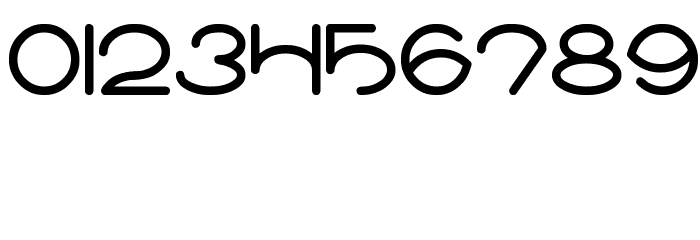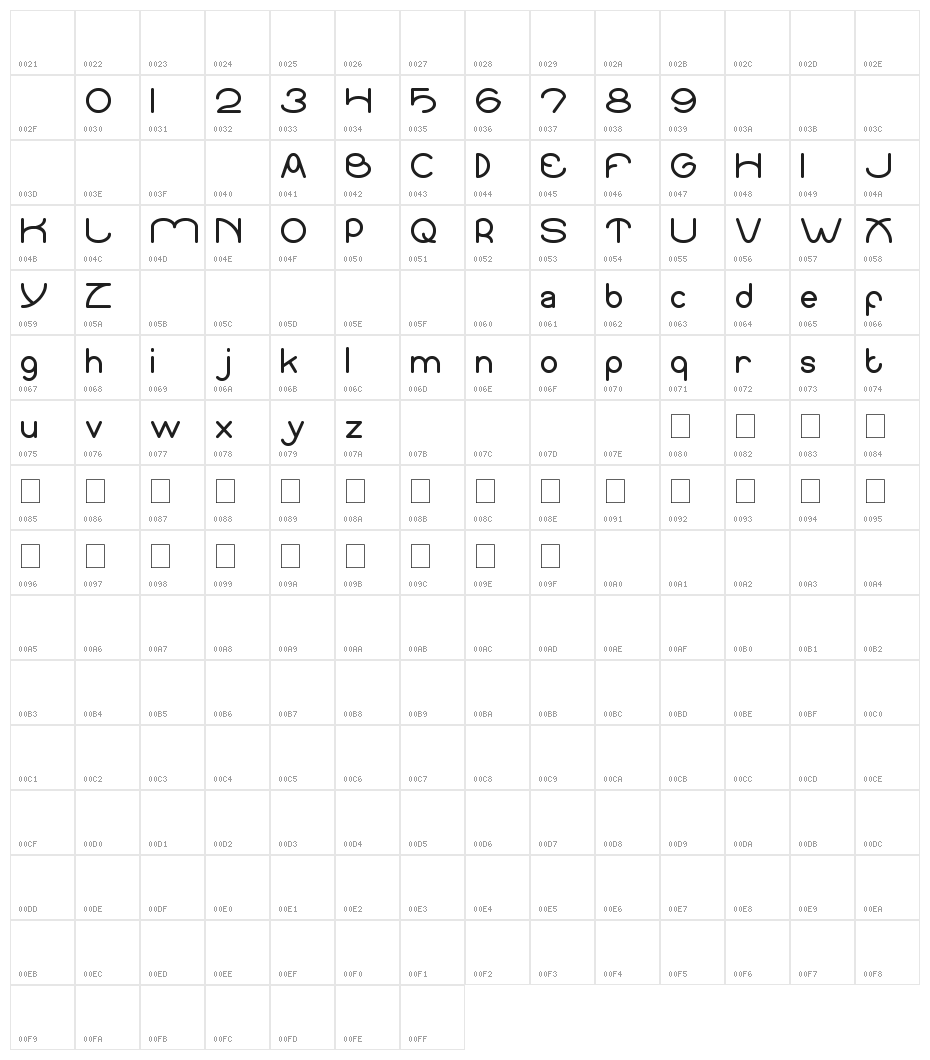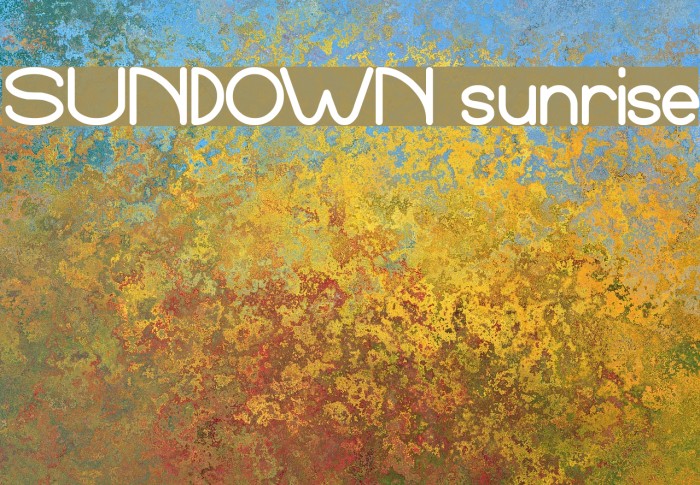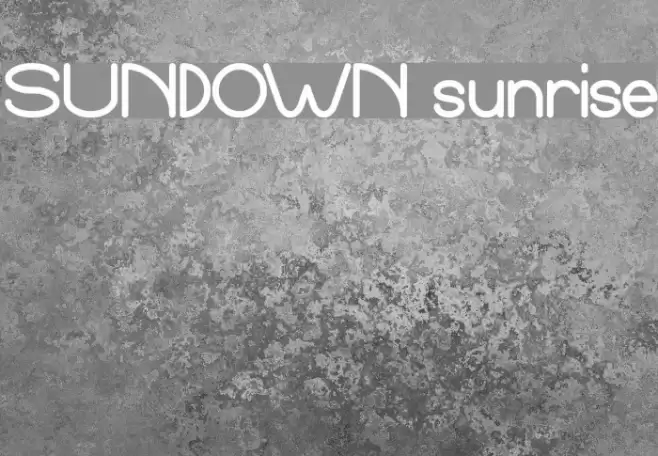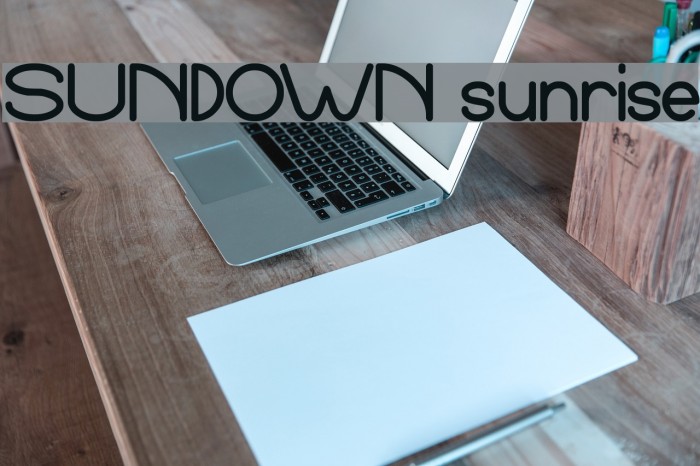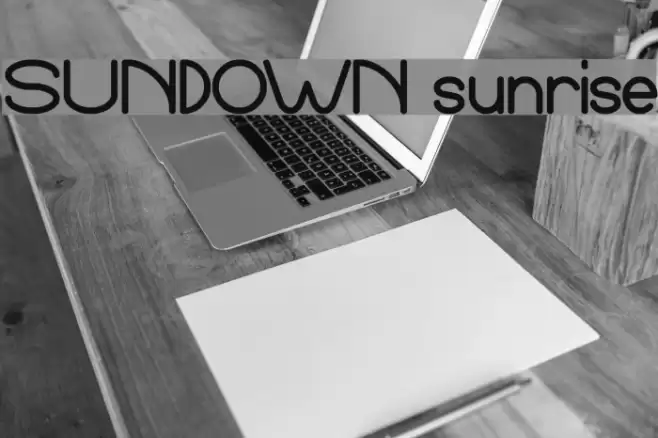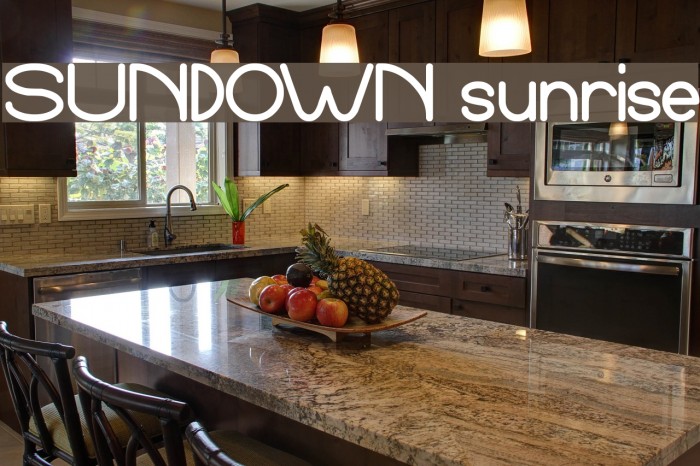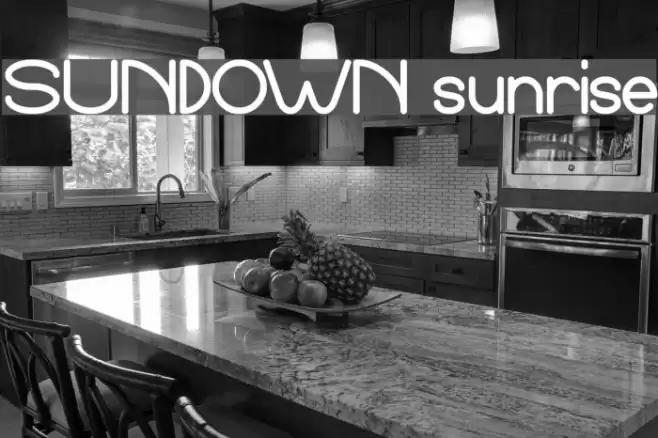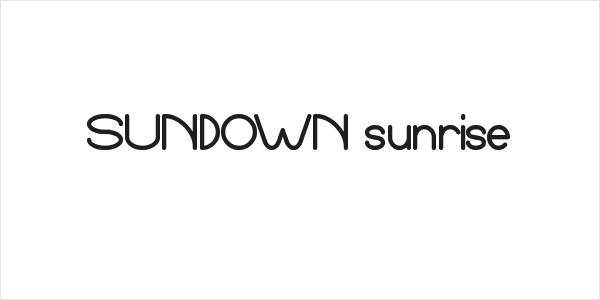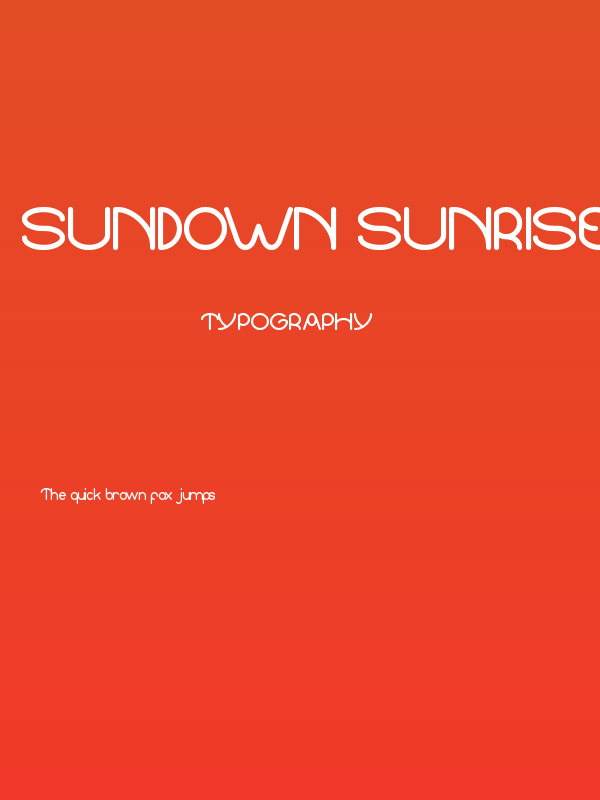
SUNDOWN sunrise Font
SUNDOWN sunrise Description
This font features a unique, modern design with rounded edges and a playful, geometric style. The characters are crafted with smooth curves and consistent stroke widths, giving it a friendly and approachable appearance. The uppercase letters maintain a uniform height, while the lowercase letters exhibit a similar rounded style, ensuring readability. The numerals and special characters are designed to match the overall aesthetic, making this font versatile for various applications. Its distinct style is ideal for projects that require a contemporary and engaging look.
| Proposed Projects | Ideal for branding, packaging, children's books, and modern web design. |